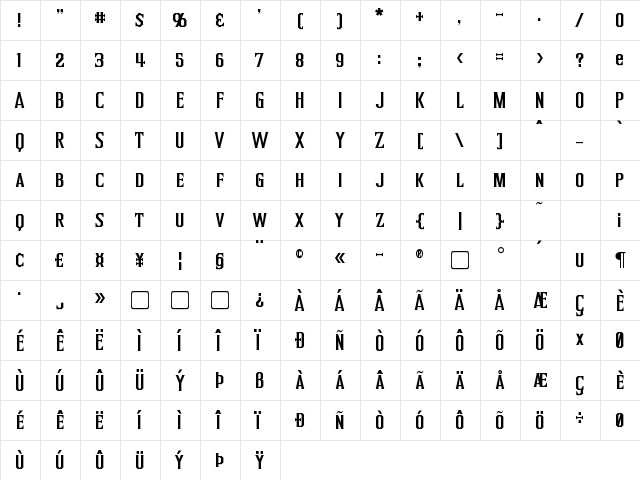
Inquisitor Regular
| Foundry | Pixel Sagas |
| Designer | Neale Davidson |
Design Context for Inquisitor Typeface
Inquisitor is a composed and adaptable typeface that performs quietly and consistently across a wide range of design contexts.